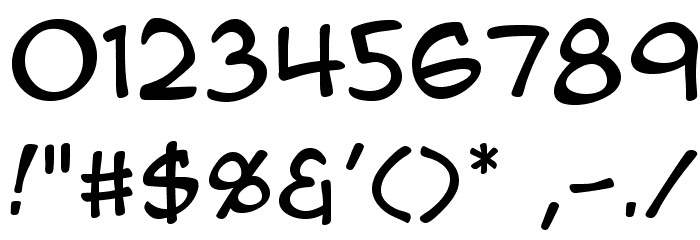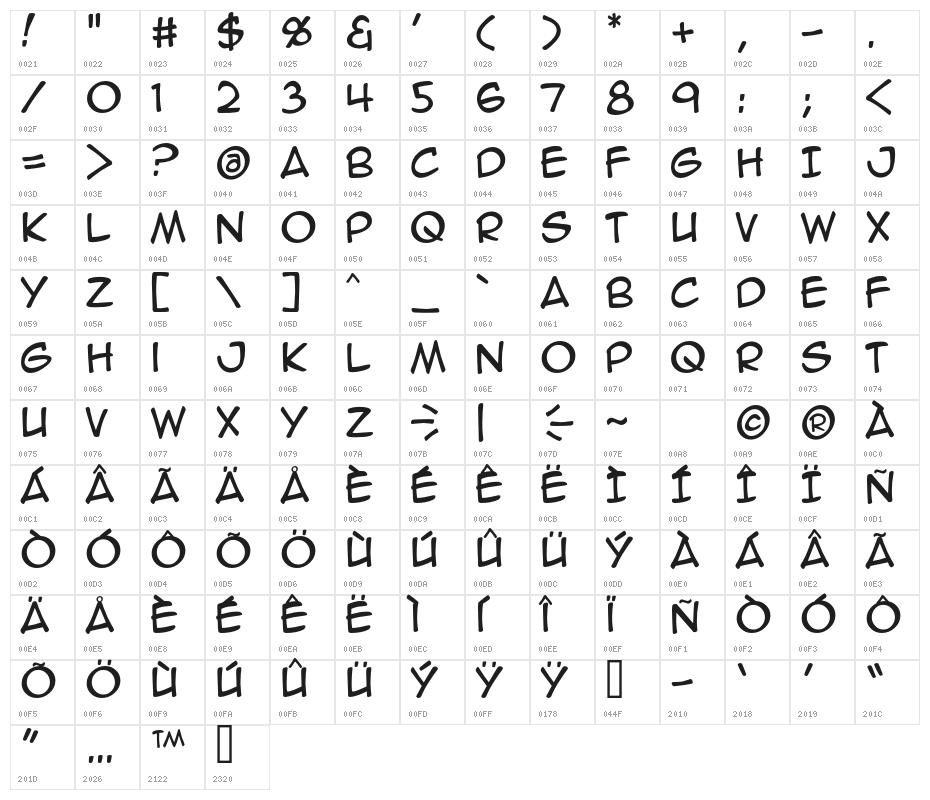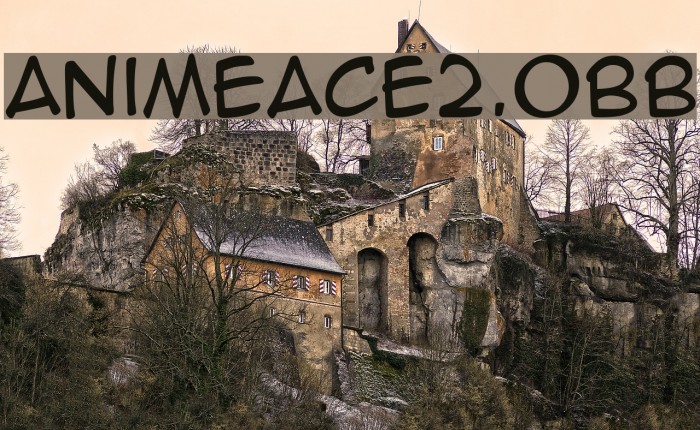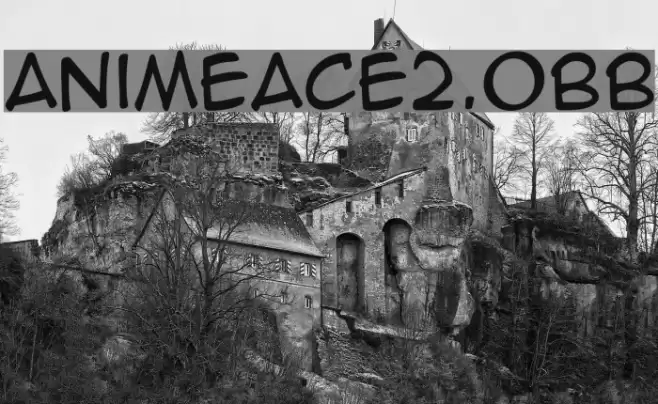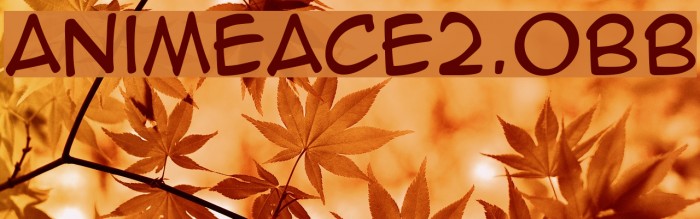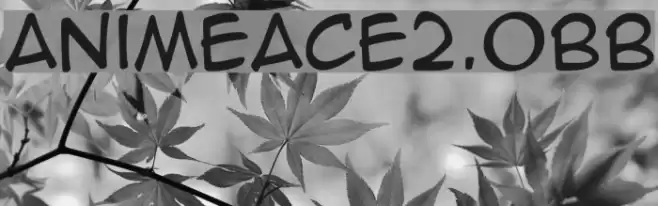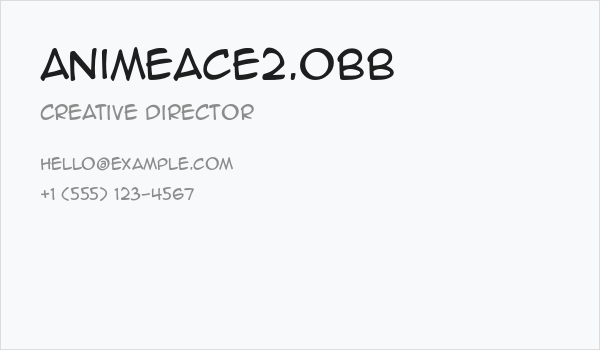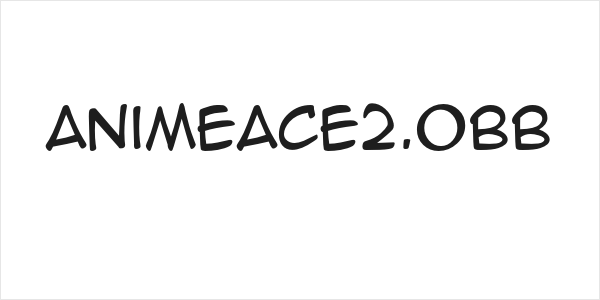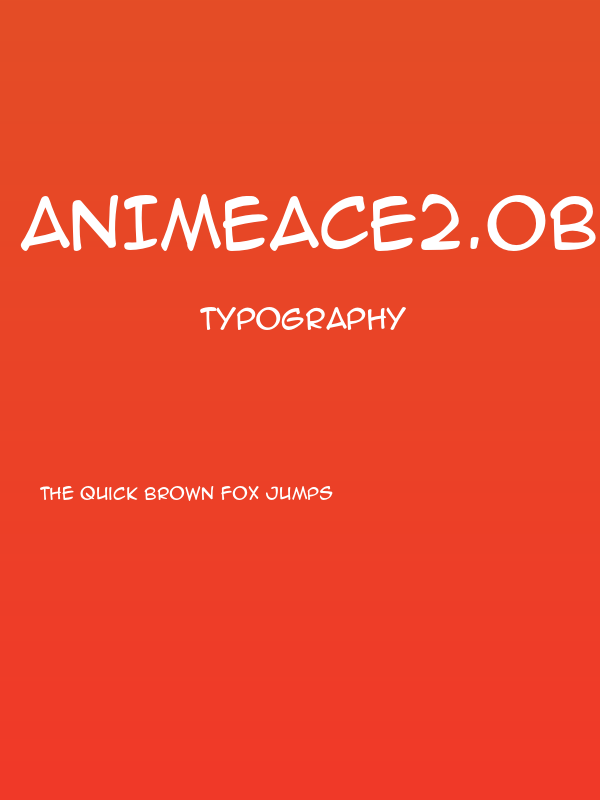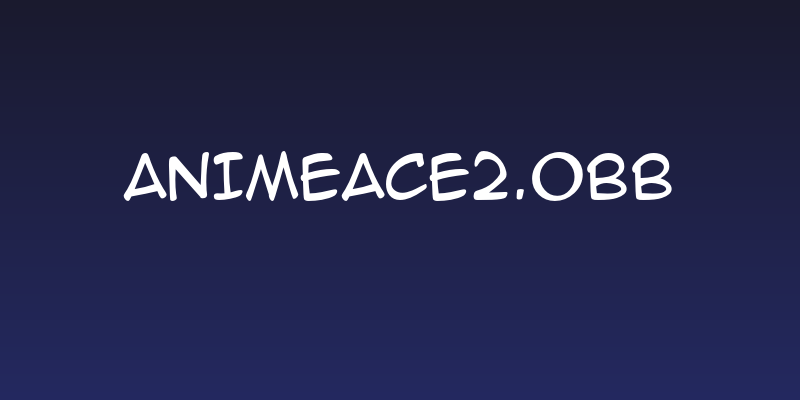
AnimeAce2.0BB Font
AnimeAce2.0BB Description
This font exudes a playful and informal style, characterized by its rounded and slightly irregular letterforms. The strokes are bold and consistent, giving it a cartoonish and approachable appearance. The characters are well-spaced, ensuring readability while maintaining a casual vibe. Its design is reminiscent of hand-drawn lettering, making it ideal for projects that require a fun and engaging aesthetic. The numerals and special characters complement the overall style, maintaining the same playful and bold characteristics.
| Use Case | Headlines, Logos, Informal text |
| Proposed Projects | Ideal for comic books, children's books, playful branding, and casual invitations. |